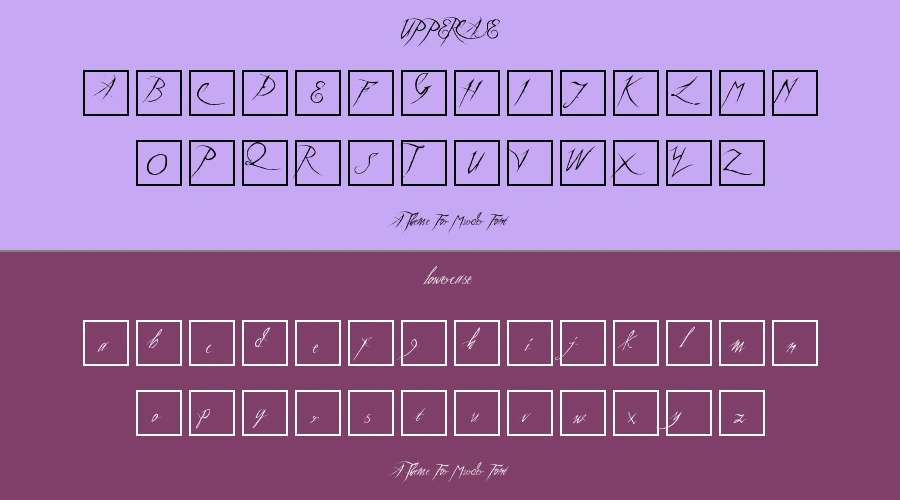
About A Theme For Murder Font
A Theme For Murder Font stands out for its distinctive combination of concave curves and personality. Ideal for financial reports, it provides the versatility and traditional values that professional projects demand. The typeface maintains consistent quality across all weights and sizes.
Key features include refined organic forms and practical case-sensitive forms, enhancing typographic expression. In brand manuals applications, A Theme For Murder Font demonstrates exceptional OCR compatibility. The joint detail and technical innovation contribute to its distinctive character and professional appeal.